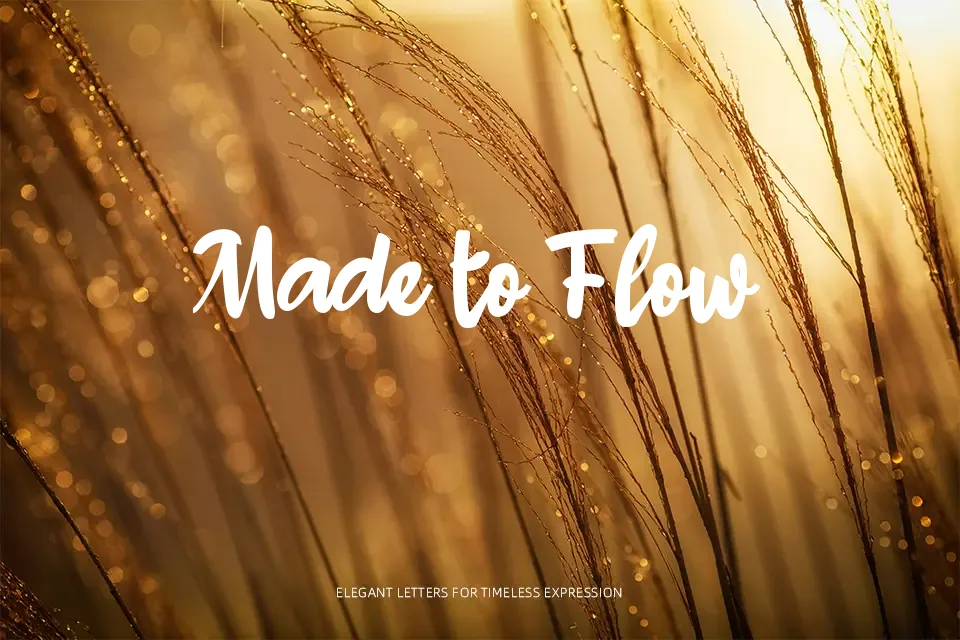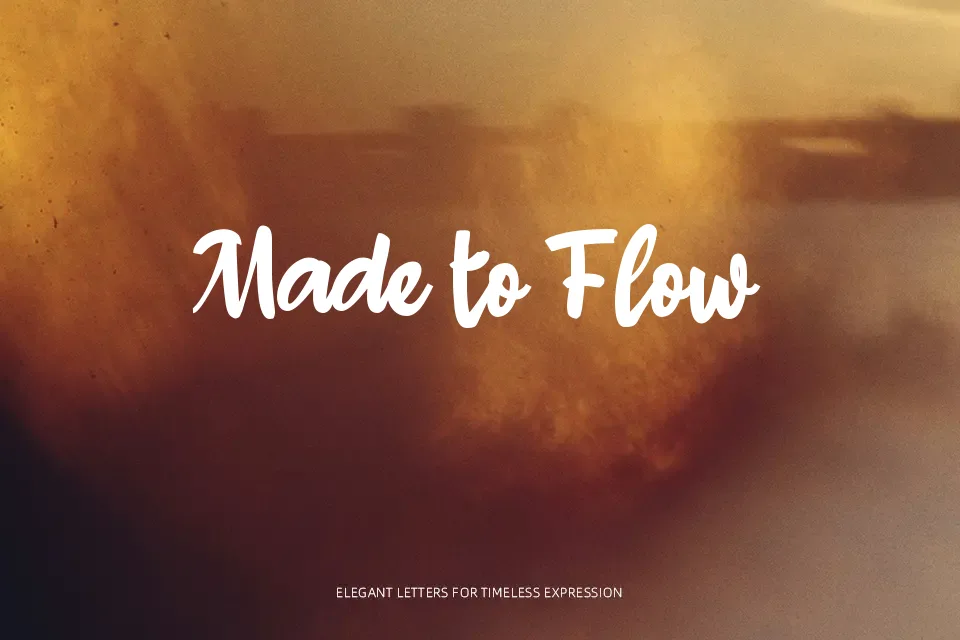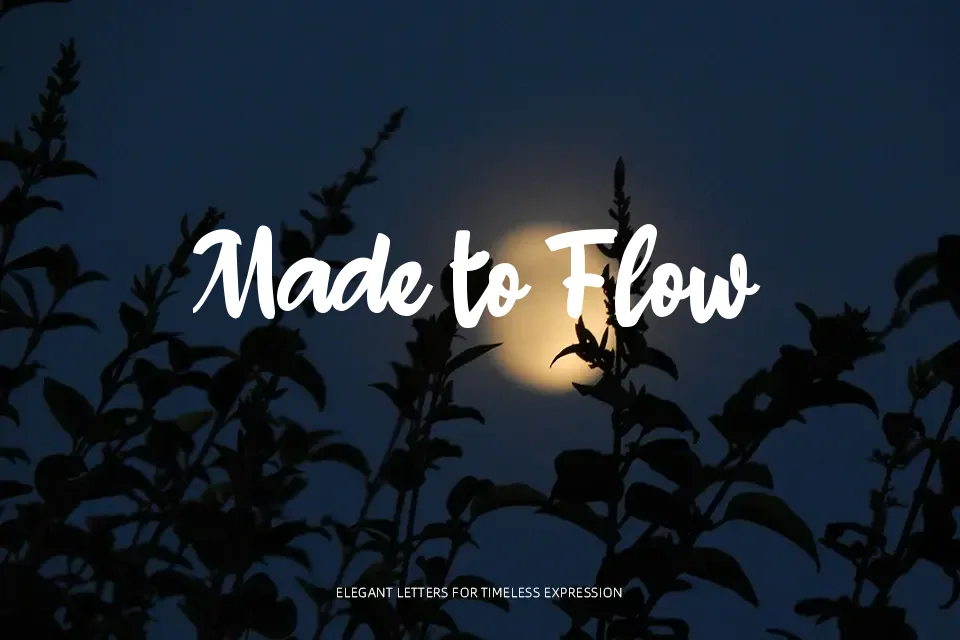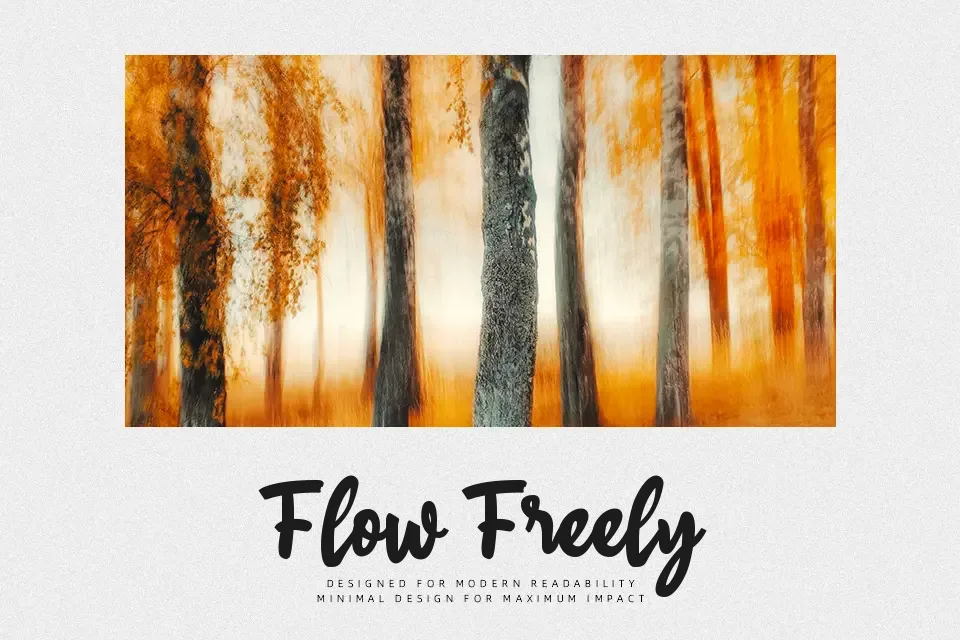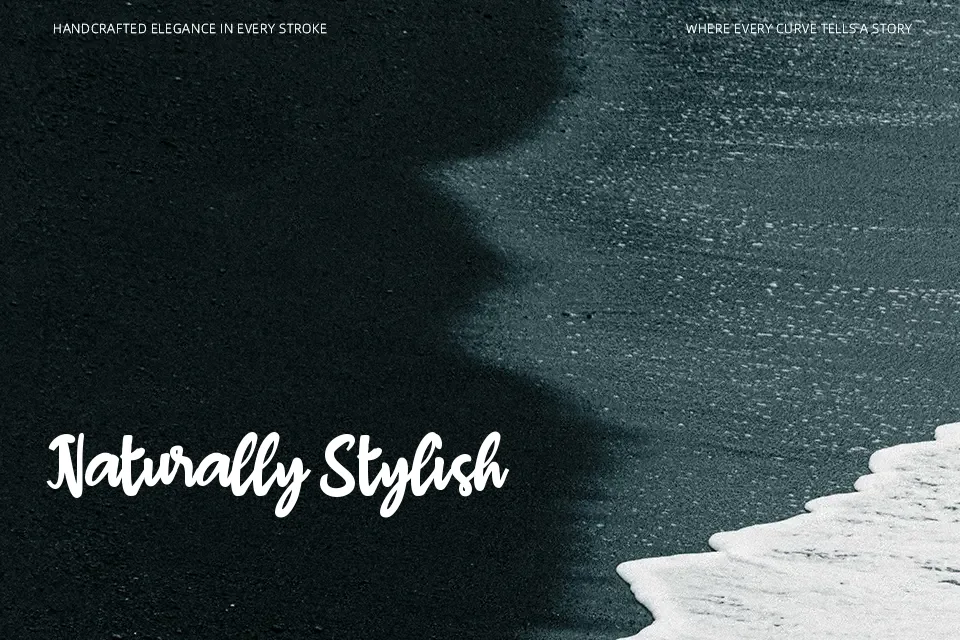
A Ahay Hore Font
A Ahay Hore is a vibrant brush script capturing the spontaneous energy of authentic handwriting. It features thick, textured strokes and an irregular baseline, giving the letterforms a bouncy, dynamic rhythm. The overall impression feels highly casual, upbeat, and unapologetically playful. Designers will find it especially effective for lively snack packaging, children’s merchandise, and engaging social media headers that demand a friendly tone. Conversely, its textured edges and informal structure make it a poor fit for small body text or serious corporate identities where strict legibility is paramount. Compared to standard monoline scripts, A Ahay Hore delivers significantly more volume and raw artistic character, making it a strong asset for bold, creative display purposes.
– Eye-catching social media graphics and quote posts
– Playful branding and children’s merchandise
– Casual food and beverage packaging
– Vibrant event posters and flyers
– Dense paragraphs and small body text
– Formal corporate and legal documents
– Minimalist or luxury brand identities
Perfect for branding, kids, and packaging, with a creative and brush style.